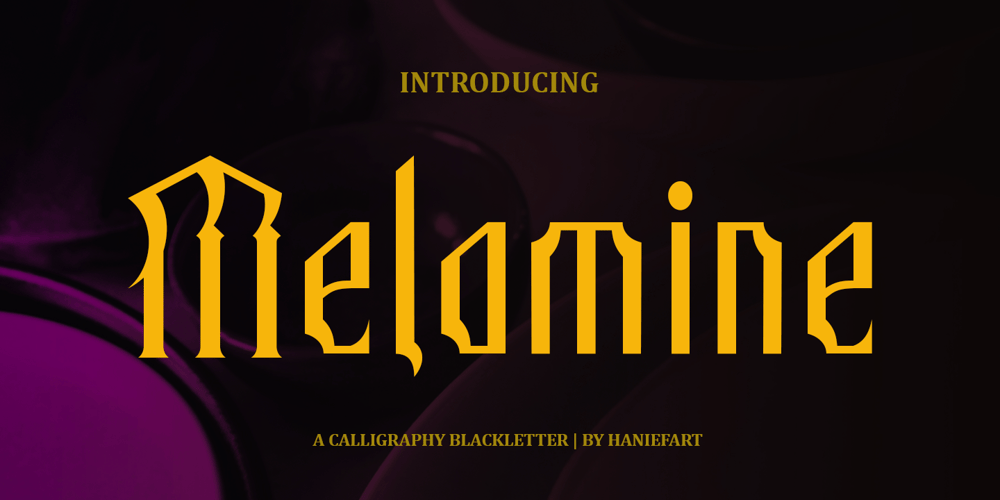
Melamine
Melamine font
Melamine Font Family was designed by Hanif Maulazi and published by Haniefart. Melamine contains 1 styles and family package options. Melamine is a handwritten font inspired by classic styles, deliberately made with different characteristics, so that it looks unique, beautiful, attractive and modern. Melamine can be used for company brands, logos, film titles, magazines, book covers and others.